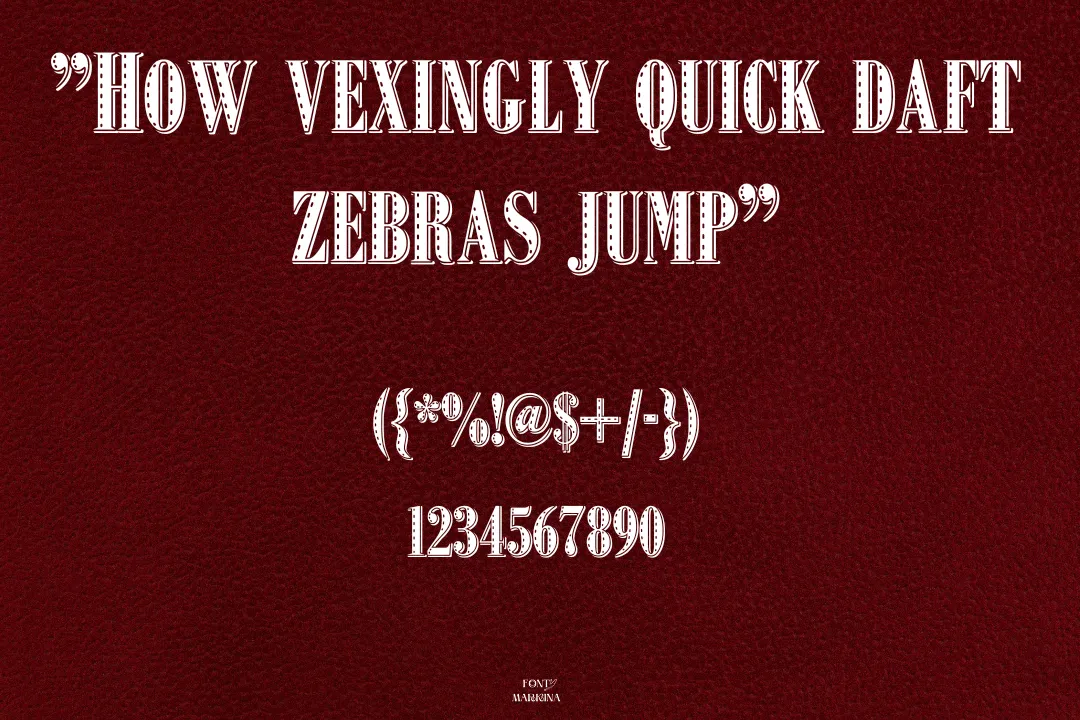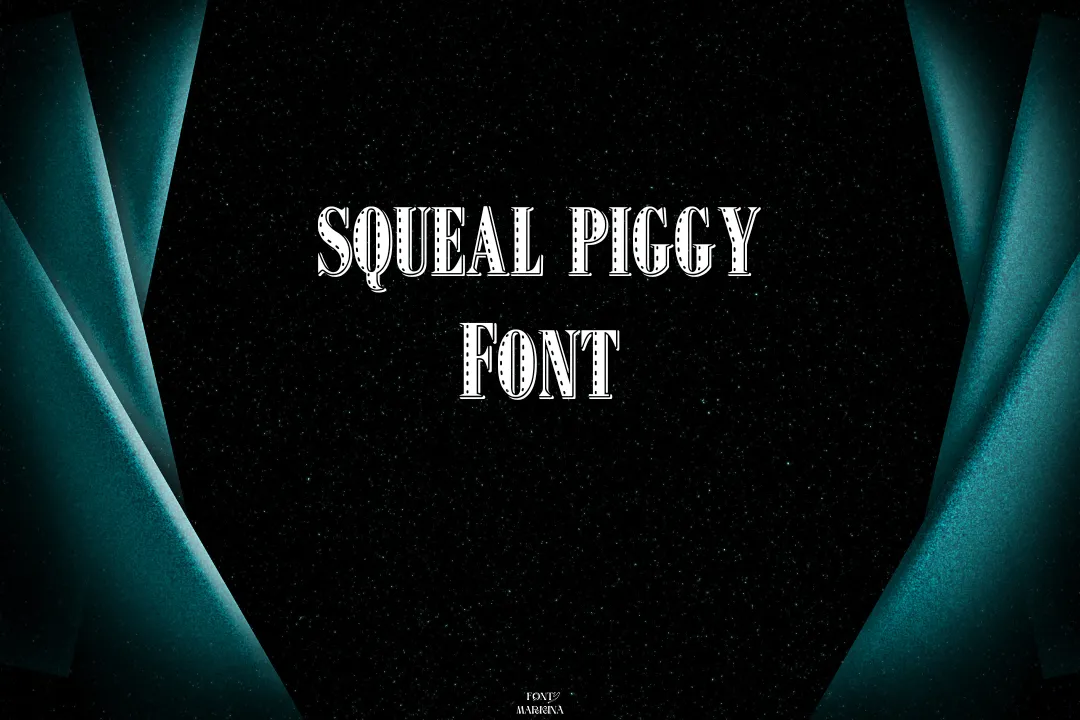
Squeal Piggy font is a tremendous texture that was finally created by a designer named Anthony Robinson. It is a fun and playful font that looks like it was written with a marker or pen. The letters are a bit uneven and wobbly, giving the font a whimsical and hand-drawn feel.
This typography is categorized as a fancy family of fonts. The name “Squeal Piggy” comes from the fact that some of the letters in the font have little pig snouts or tails sticking out of them. For example, the letter “g” has a curly tail that looks like a pig’s tail.
Jojo Font is closest to this texture. Squeal Piggy is a lighthearted and unique font that can add a fun touch to any design project. In order to convert your simple text into a colorful graphic you will copy and paste your original text on the online generator tool.
Uses of Squeal Piggy Font
This playful and whimsical nature of the font makes it a great choice for children’s books or materials aimed at kids. This texture can add a fun and lighthearted touch to greeting cards, especially those with humorous or silly messages. This family is well effective for Adobe, and Canva-type tasks.
The font’s unique and eye-catching style could be used to create a memorable brand identity for a business that wants to convey a fun and playful image. It is perfect for creating graphics to be shared on social media, especially for brands targeting younger audiences.
The uneven and slightly messy look of the font makes it a great choice for creating signs with a handmade or DIY aesthetic. You can also make the proper pairing of this Distro font with this typography.
Squeal Piggy Font View
Font Information
| Name | Squeal Piggy Font |
| Designer | Anthony Robinson |
| Type | Fancy |
Is Squeal Piggy a fancy typeface?
Yes, sure this font family lies in the category of the fancy family of fonts.
Who is the manufacturer of the Squeal Piggy typeface?
Anthony Robinson is the main creator of this typography.